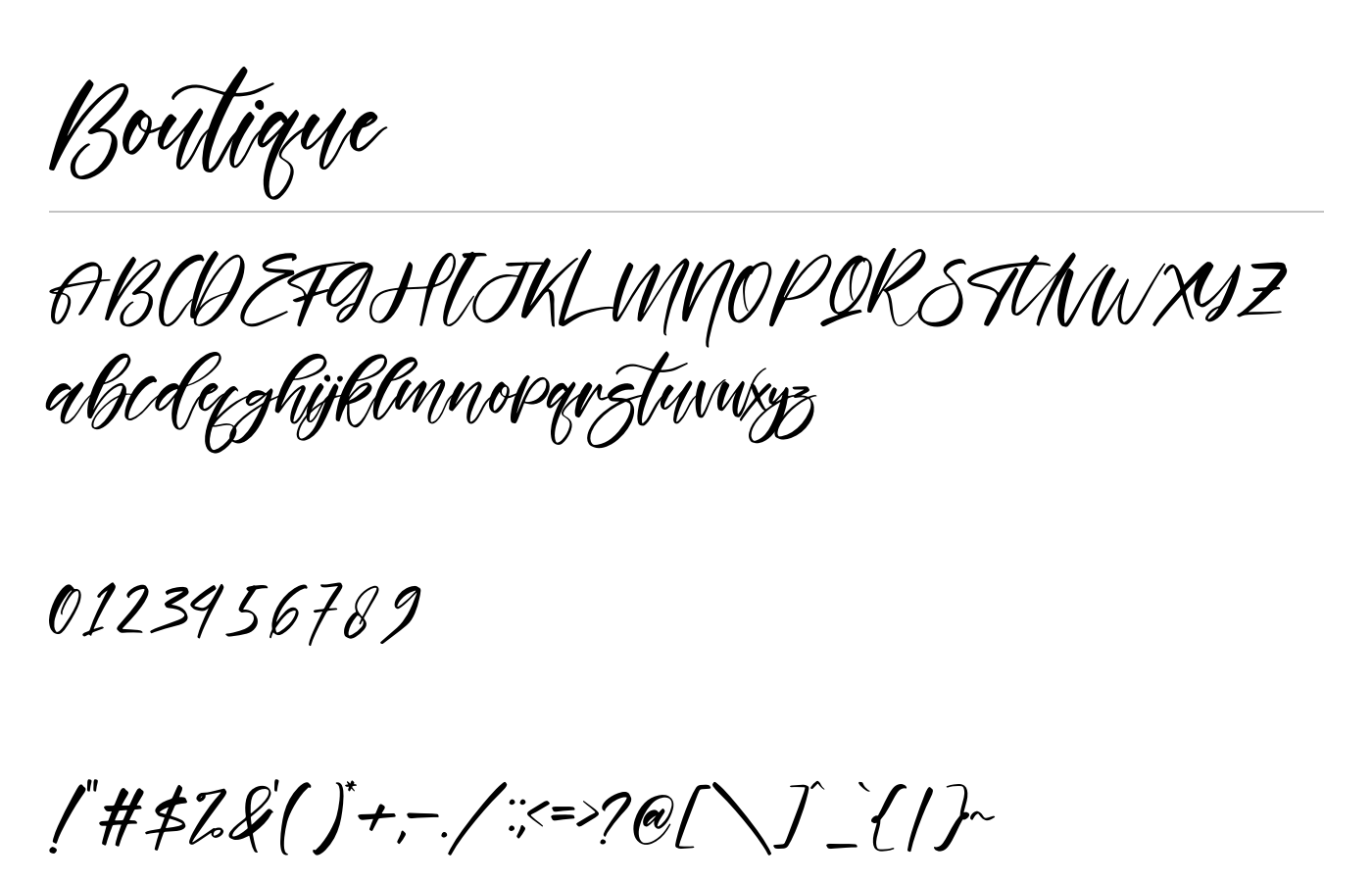
Boutique Font is an elegant, flowing script typeface with a modern calligraphic style. Its smooth, moderately contrasted strokes and lively letterforms make it perfect for fashion, beauty, and luxury branding, lending a sophisticated and personal touch to logos, invitations, and headlines. This font works best where a stylish, artistic feel is desired to create a warm and inviting impression.
Boutique Font
About Boutique Font